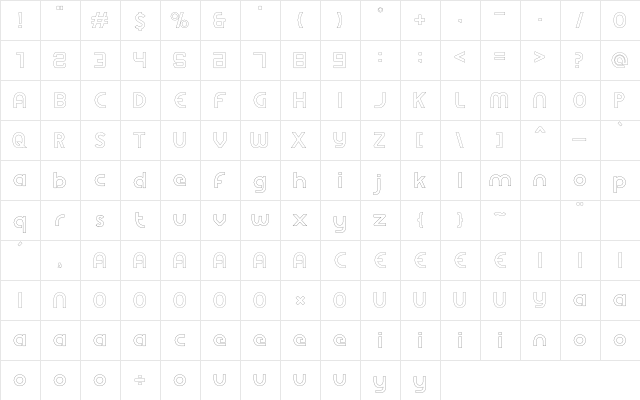
Aslina Outline
| Designer | Randy Ilhamsyah // Vasgaz Creative |
Design Context for Aslina Typeface
Aslina brings ornamental detail and strong personality to headlines and identities, where visual impact matters more than quiet functionality.
Font Pairing: Pair with a clean neutral sans-serif for body copy to let Aslina's character lead without overwhelming the composition.
Pro Tip: Treat Aslina as the centrepiece of your typographic hierarchy. One strong heading set in a decorative face can carry an entire layout.